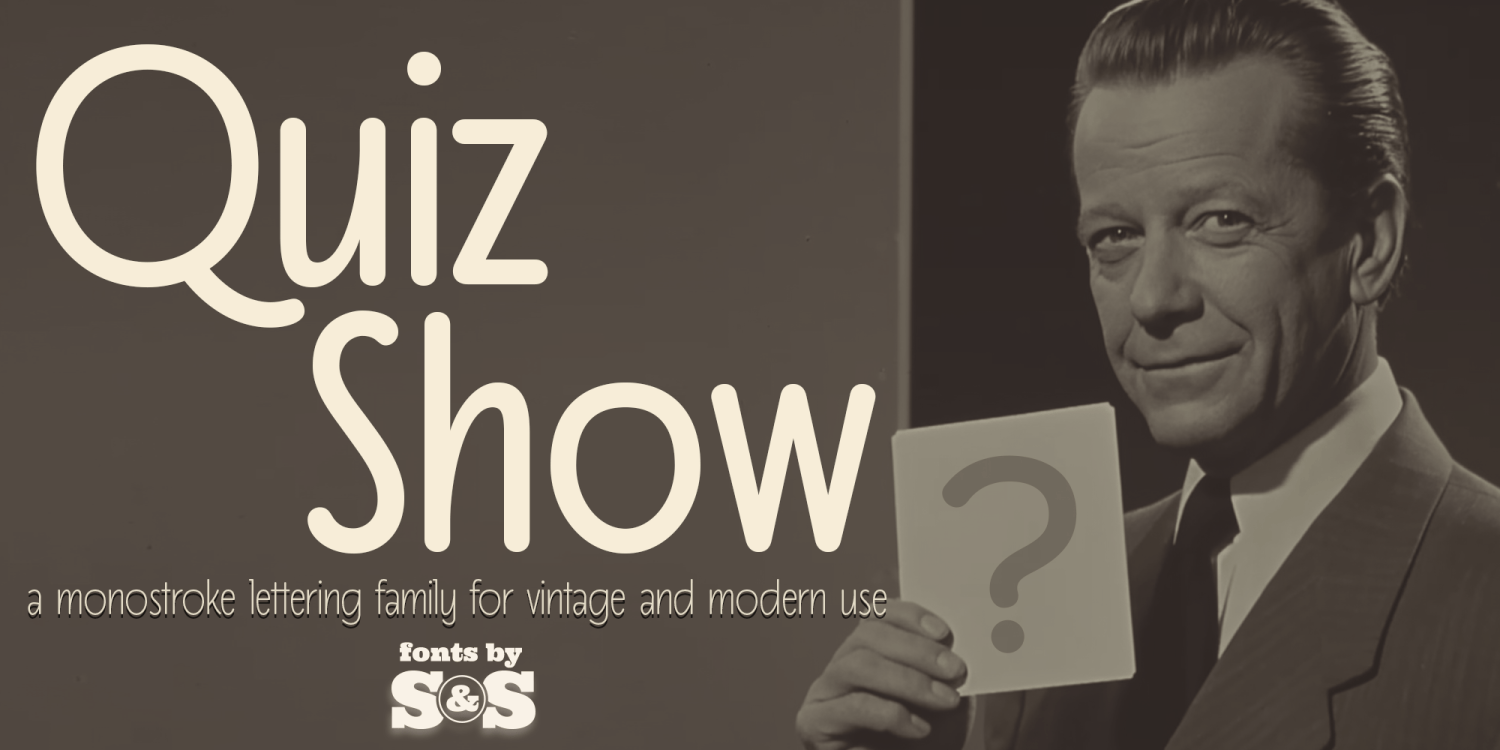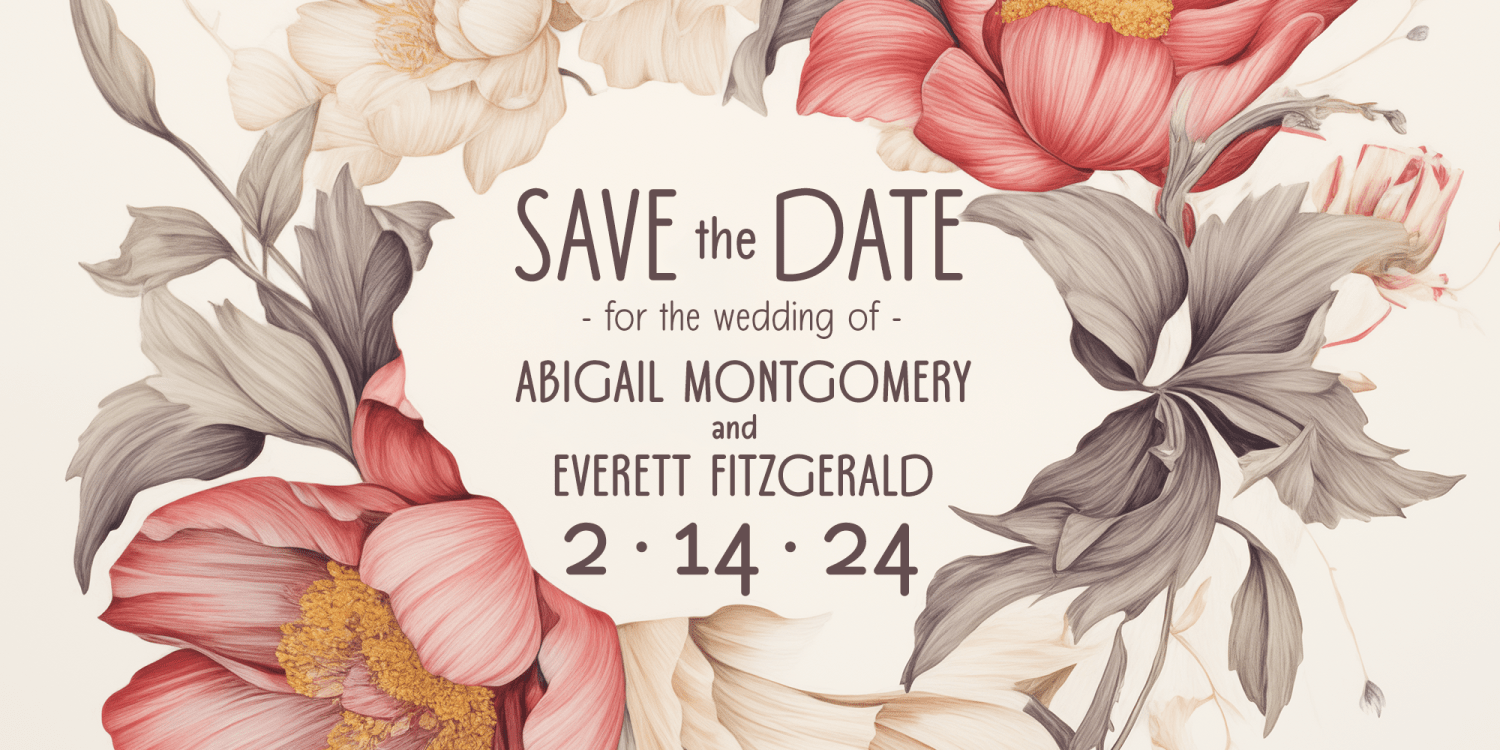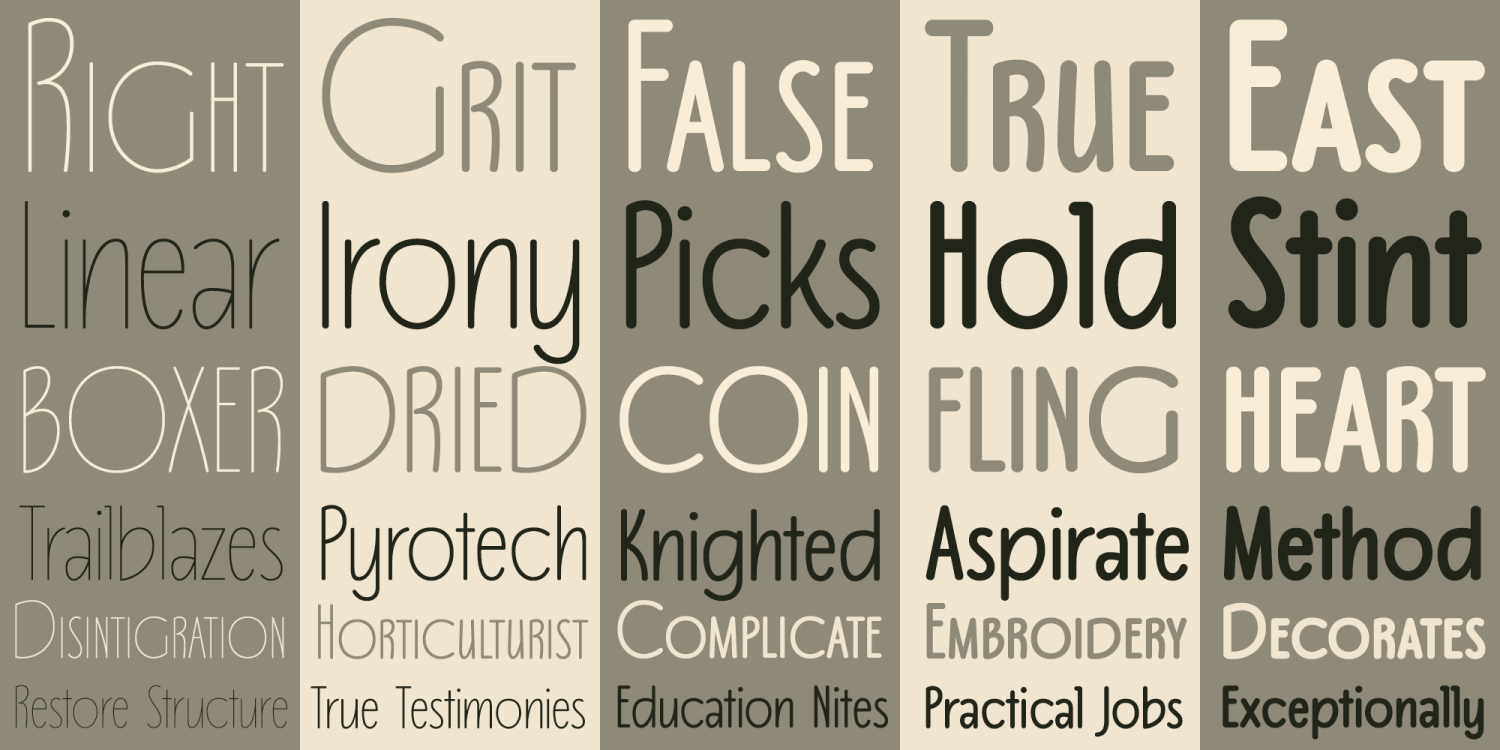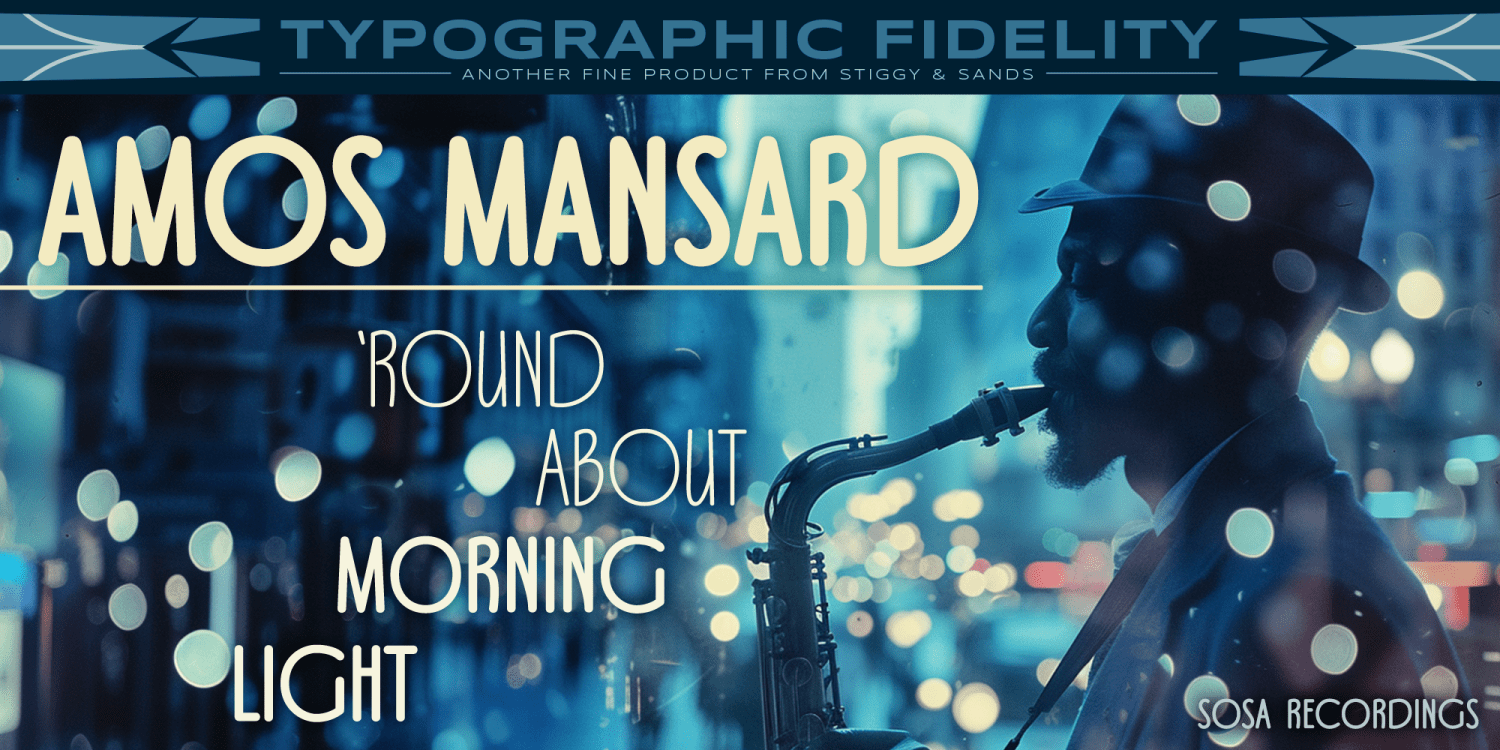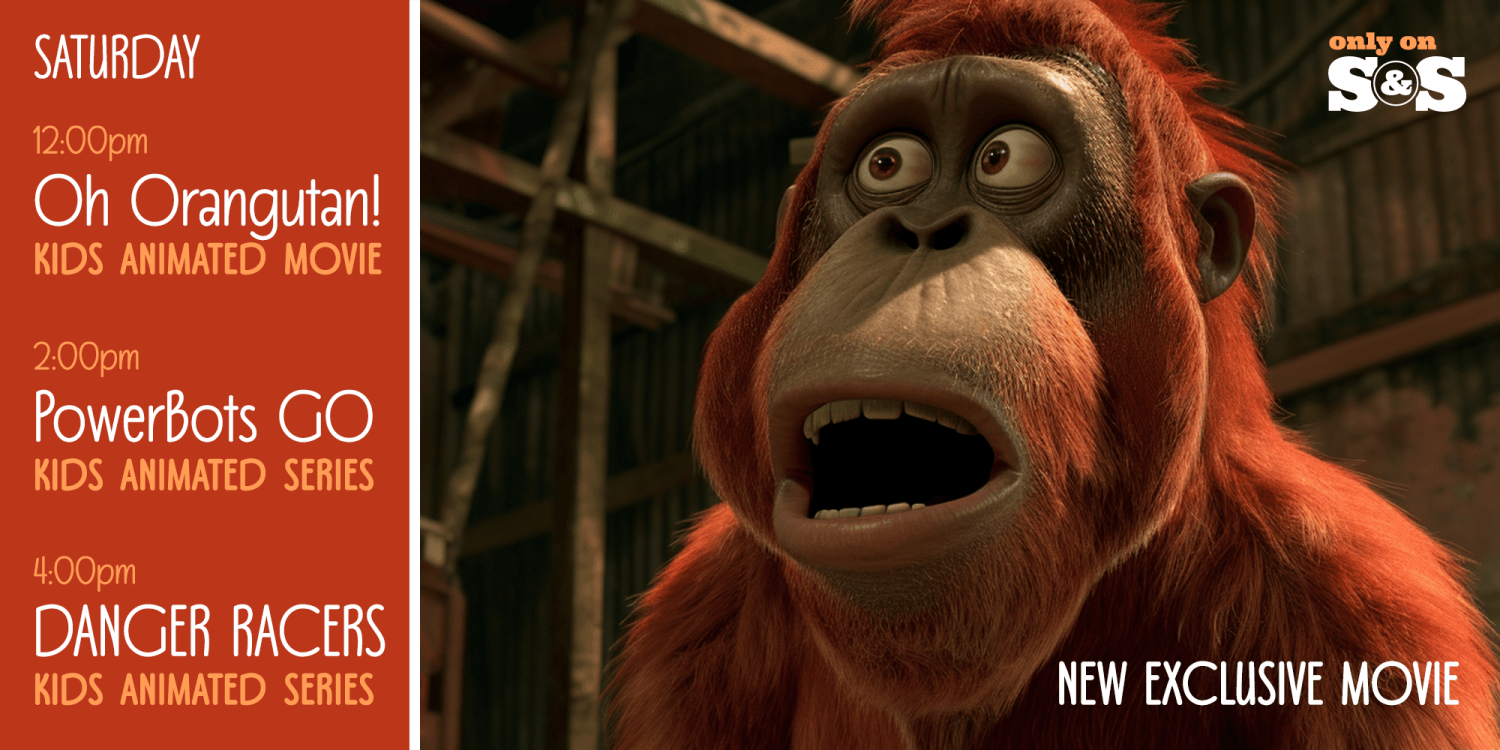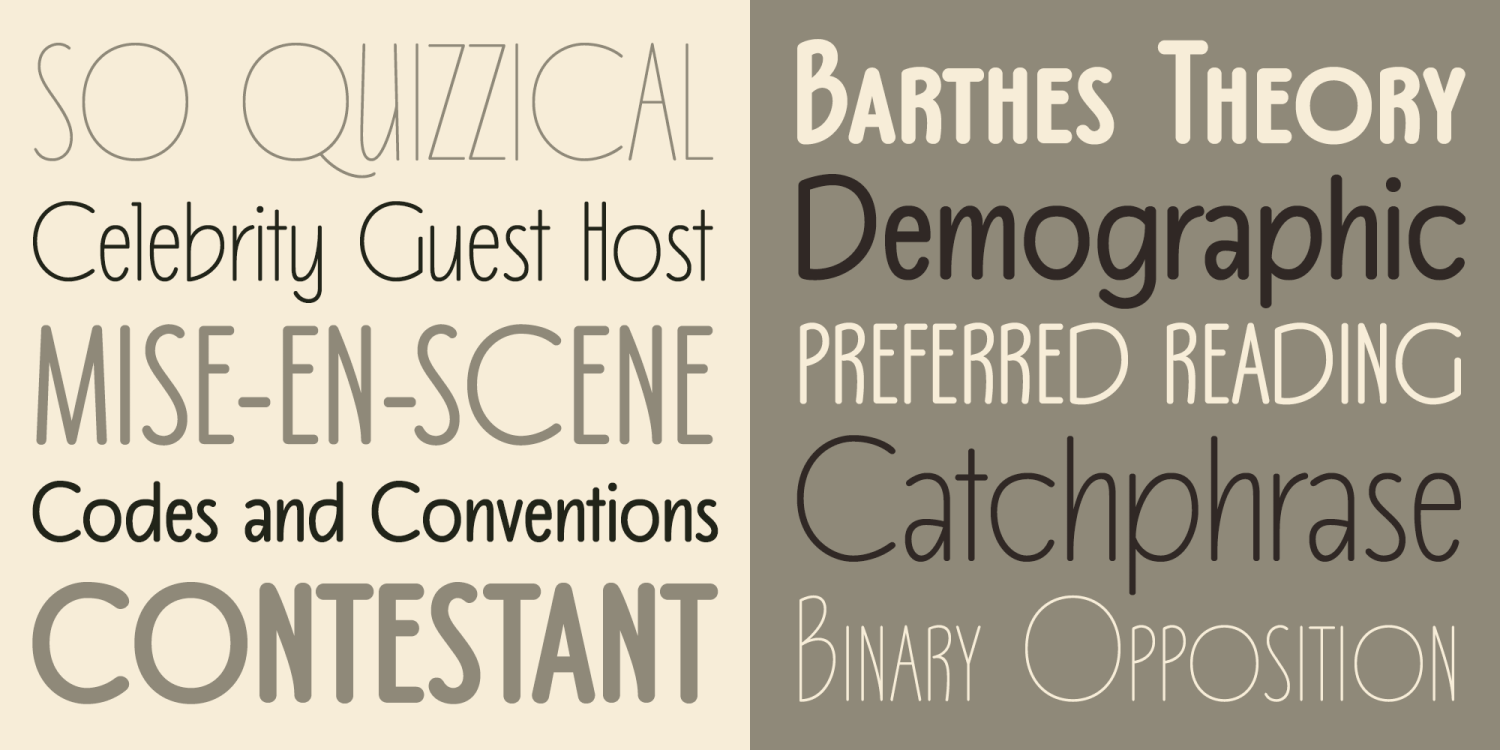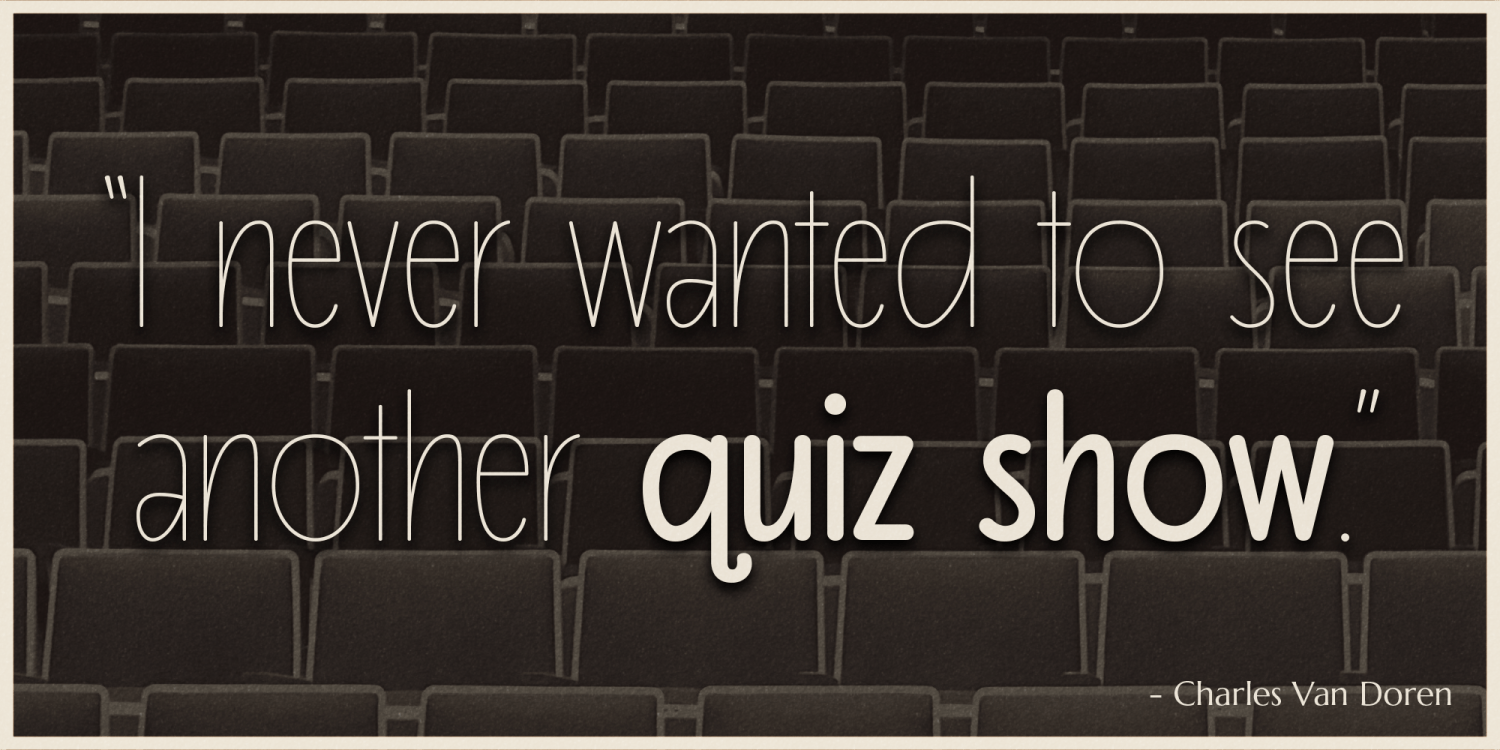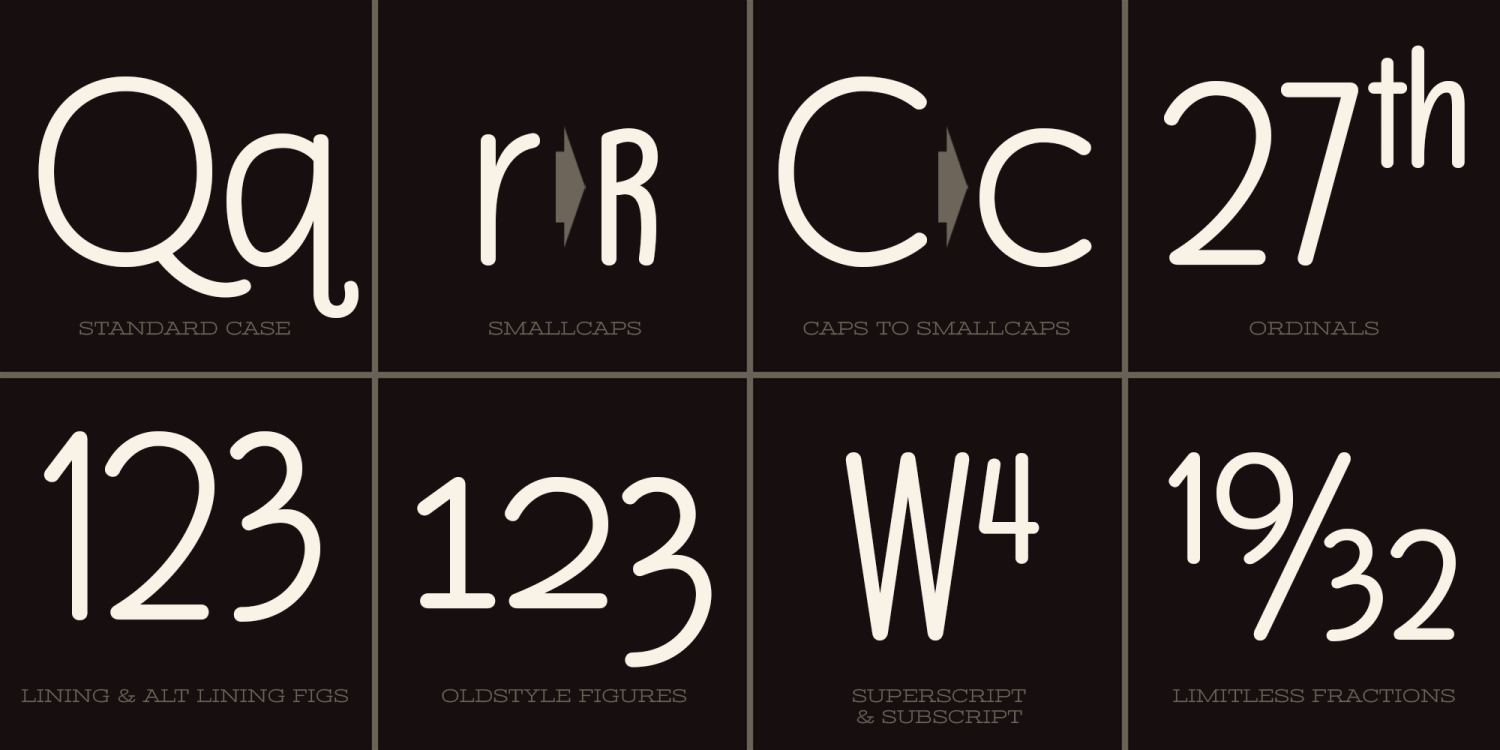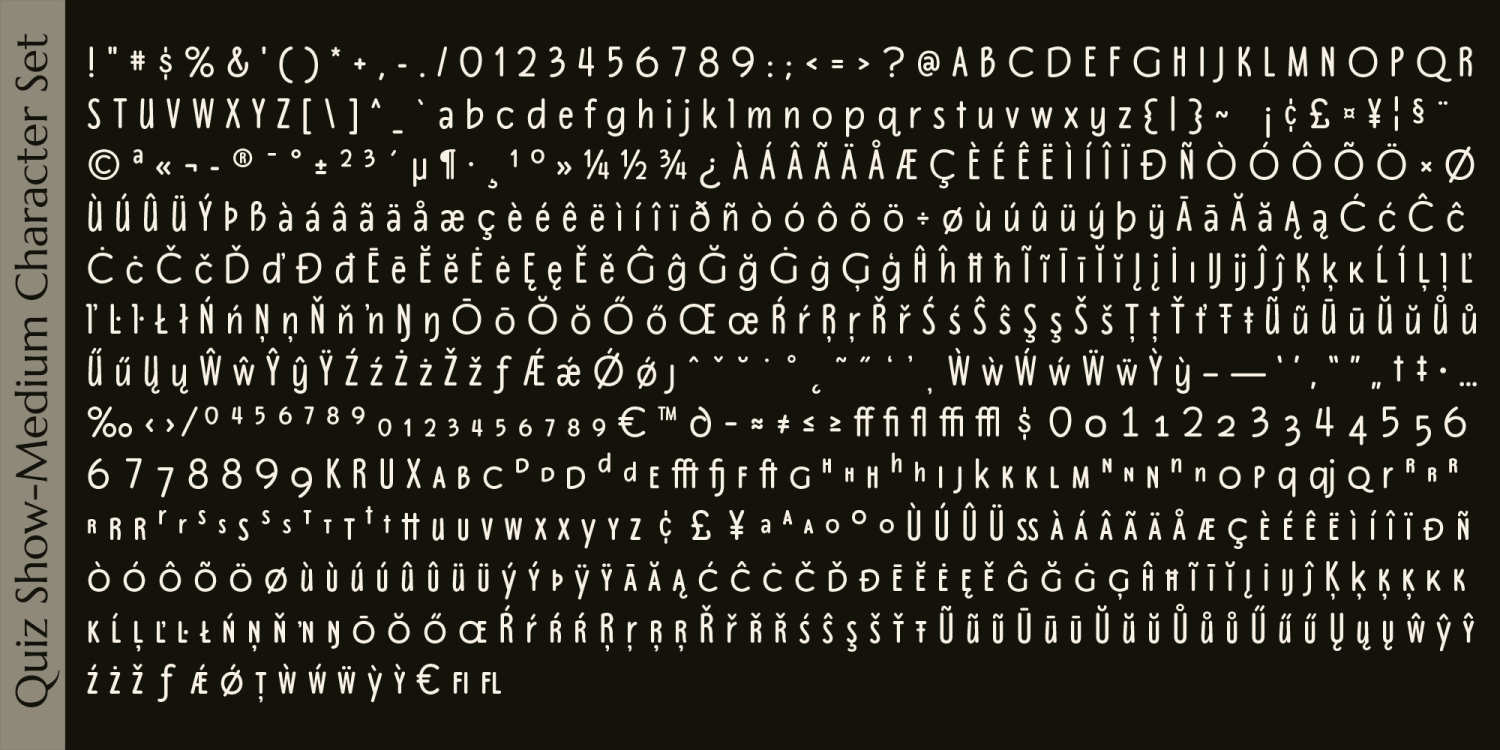
Quiz Show
Quiz Show takes its inspiration from refined hand lettering with elegant art deco nods in the letterforms. A tall x-height brings a friendly and welcoming feel. It's a font family that can be used for utilitarian purposes like architectural drafts or used for invitations, magazine titling, casual broadcast design, and much more. The SmallCaps and extensive figure sets add a more serious note to the nature of the typeface.
Available in weights from a needle-thin Light to a beefy sharpie-styled Bold.
OpenType features include:
- SmallCaps - Full set of Inferiors and Superiors for limitless fractions.
- Tabular, Proportional, and Oldstyle figure sets.
- Stylistic Alternates for Caps to SmallCaps conversion.
- A collection of ligatures and several alternate characters for improved typesetting in various uses.